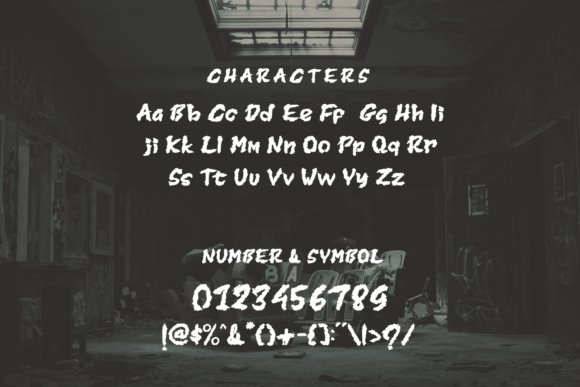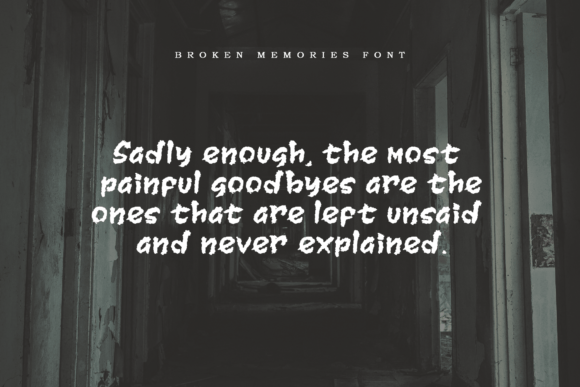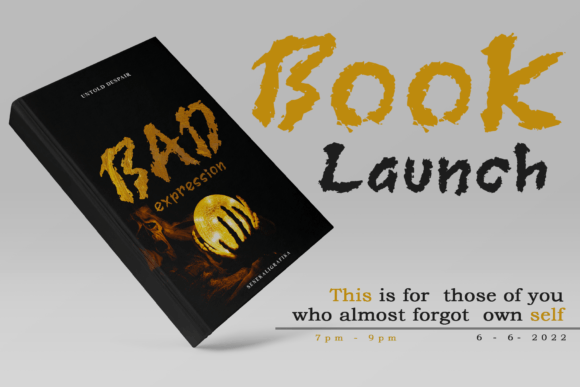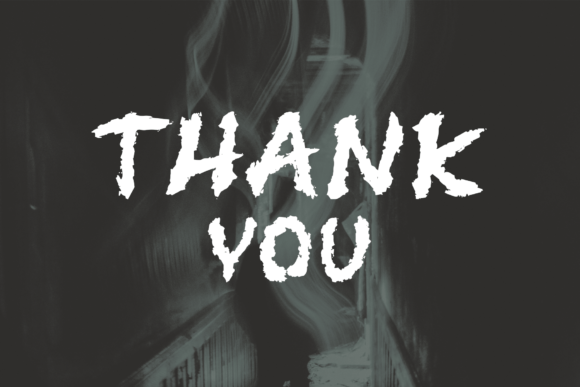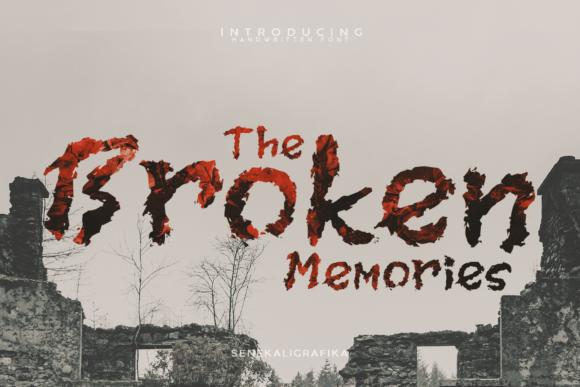
Unleash the Horror with Broken Memories Font
Are you a designer or crafty enthusiast looking for a unique and eerie font to add a touch of darkness to your projects? Look no further than the Broken Memories Font. This distinctive font is inspired by the classic horror and thriller movie posters of the old era, evoking instant nightmare sensations with its hard strokes and signature style.
The Inspiration Behind Broken Memories Font
The Broken Memories Font is a masterful creation, born out of a passion for the horror and thriller genres. Its design is reminiscent of the iconic movie posters that once graced the silver screens, striking fear into the hearts of audiences. The font’s creator aimed to capture the essence of those classic posters, distilling their eerie and suspenseful atmosphere into a typographical design that’s sure to send shivers down the spine.
Endless Possibilities with Broken Memories Font
Broken Memories Font is an incredibly versatile design tool, perfect for a wide range of applications. Whether you’re working on a horror-themed project, creating branding materials for a dark and edgy company, or simply looking to add a touch of macabre to your craft, this font has got you covered. Here are just a few ideas to get you started:
- Horror and Thriller Movie Titles: Create spine-tingling movie titles that would make Alfred Hitchcock proud.
- Album Covers: Add a haunting touch to your music album covers, perfect for darkwave, metal, or horror-themed music.
- Logos and Branding: Establish a strong brand identity with a bold, eye-catching logo that exudes a sense of mystery and intrigue.
- Clothing and Apparel: Design striking t-shirts, hoodies, or posters that will make a statement.
- Labeling and Packaging: Create eerie labels and packaging for products that demand a dark and edgy aesthetic.
What Makes Broken Memories Font Stand Out
Broken Memories Font boasts a range of features that make it an exceptional choice for designers and crafters:
- Hard Strokes: The font’s bold, hard strokes create a rugged and distressed look, perfect for horror and thriller themes.
- Signature Style: The font’s unique signature style evokes a sense of nostalgia, reminiscent of classic horror movie posters.
- Instant Nightmare Sensations: The font’s eerie design is guaranteed to send shivers down the spine, making it perfect for projects that demand a dark and foreboding atmosphere.
Tips and Tricks for Using Broken Memories Font
To get the most out of Broken Memories Font, here are some expert tips and tricks:
- Experiment with Colors: Try pairing the font with bold, vibrant colors to create a striking contrast.
- Mix and Match: Combine Broken Memories Font with other fonts to create a unique and eye-catching design.
- Play with Textures: Add a distressed or vintage texture to your text to enhance the font’s rugged, distressed look.
Broken Memories Font is a game-changer for designers and crafters looking to add a touch of darkness and horror to their projects. With its hard strokes, signature style, and instant nightmare sensations, this font is perfect for a wide range of applications. Whether you’re working on a horror movie title, album cover, or branding materials, Broken Memories Font is the perfect choice. So why wait? Unleash the horror and get creative with Broken Memories Font today!